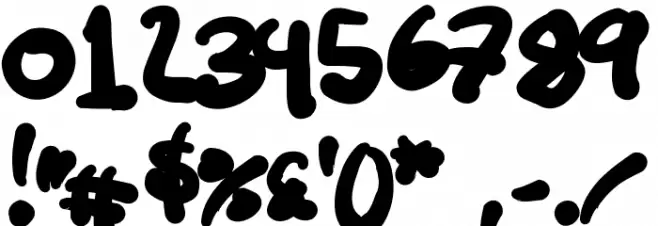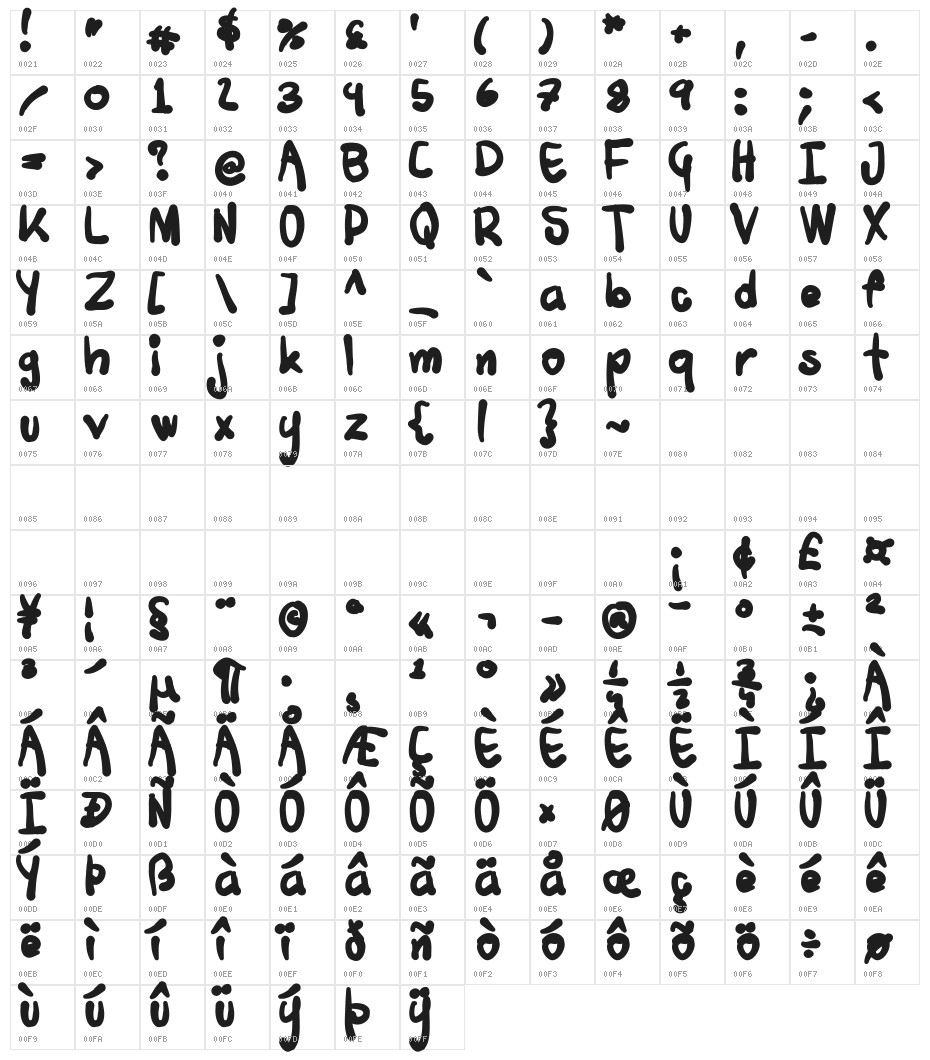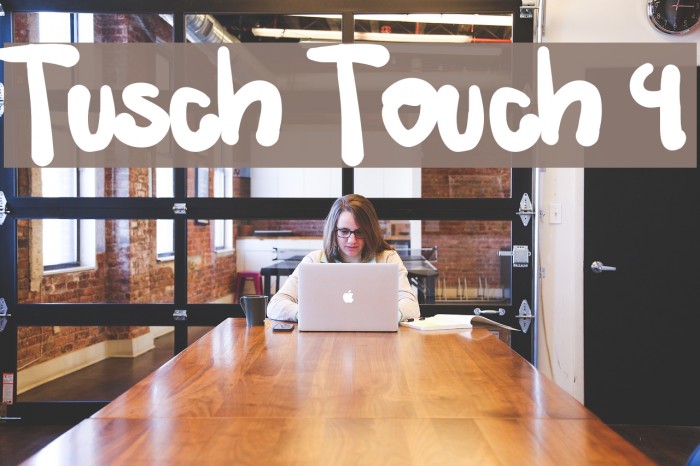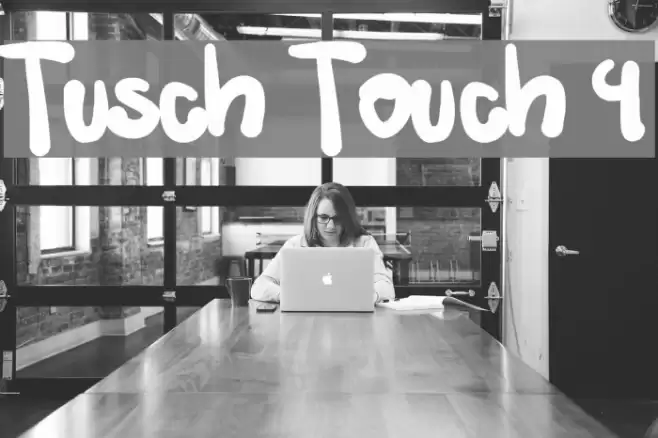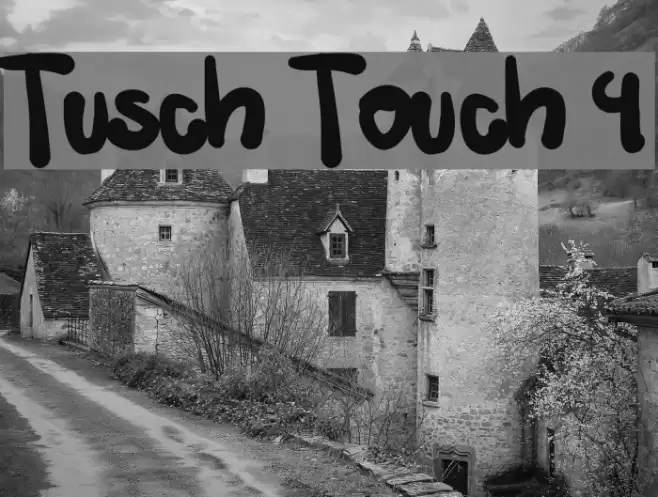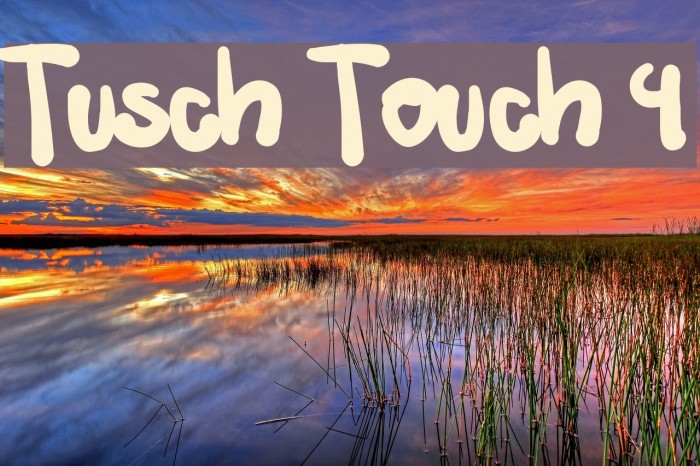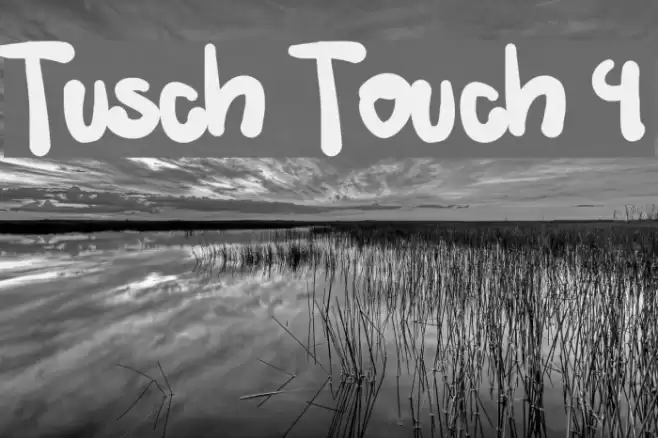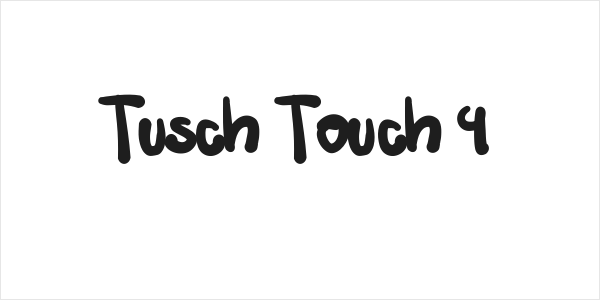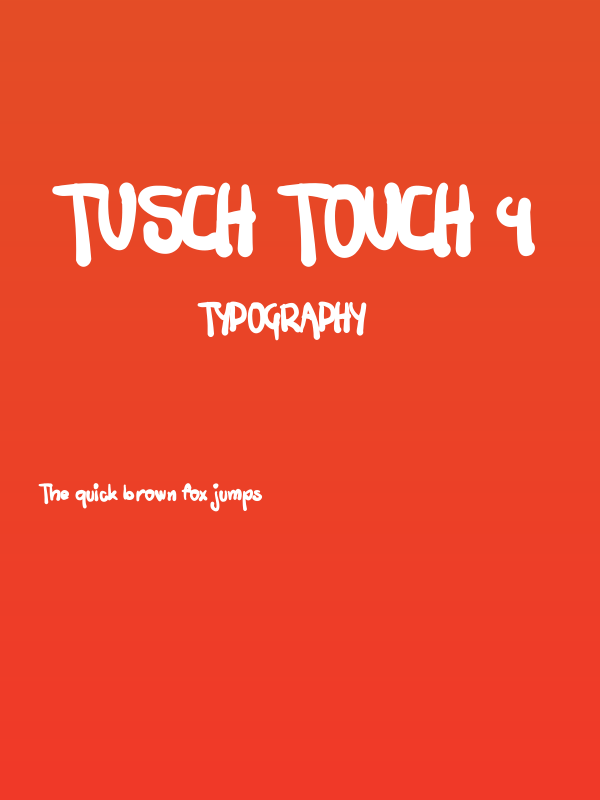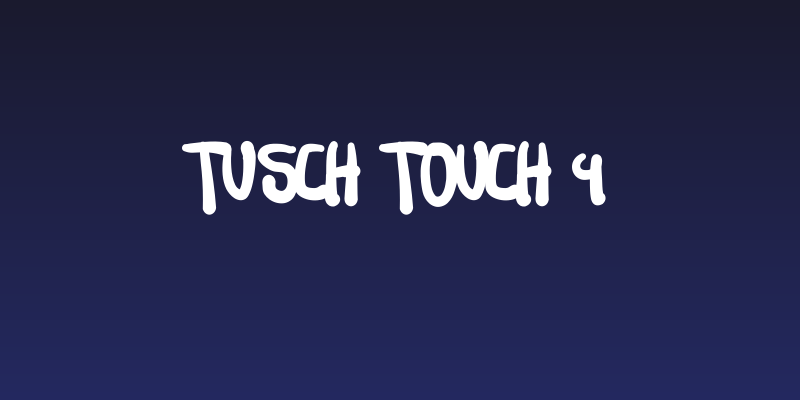
Tusch Touch 4 Font
Tusch Touch 4 Description
This font features a bold, playful style with a handwritten appearance. The characters are thick and rounded, giving them a friendly and approachable look. The uppercase and lowercase letters maintain a consistent weight, while the numbers and special characters are equally bold and expressive. The overall design is informal, with a slightly irregular baseline that adds to its charm. This font is perfect for projects that require a personal touch or a casual, fun vibe.
| Overall Style | Playful, Informal |
| Proposed Projects | Ideal for children's books, greeting cards, playful branding, and casual social media graphics. |